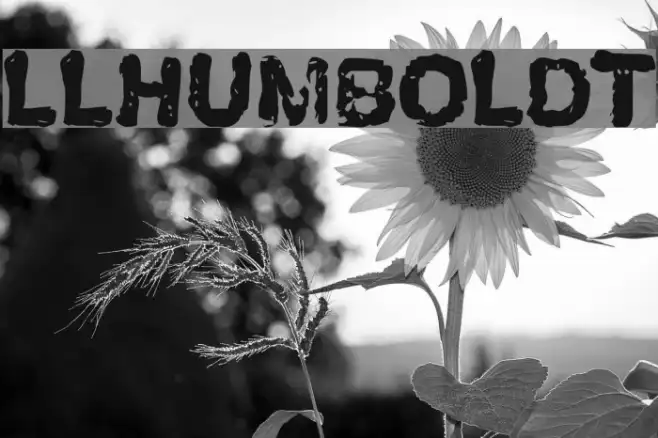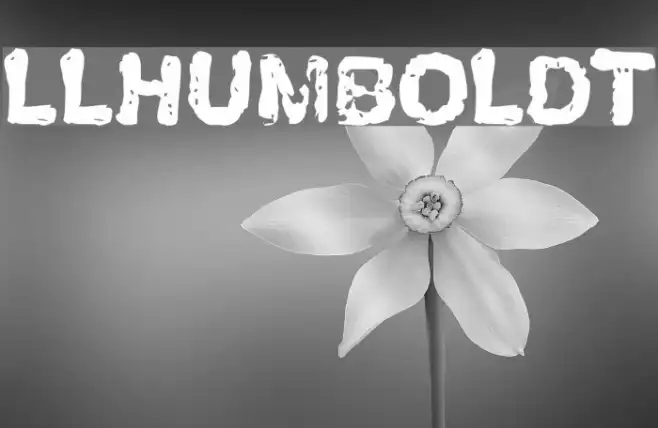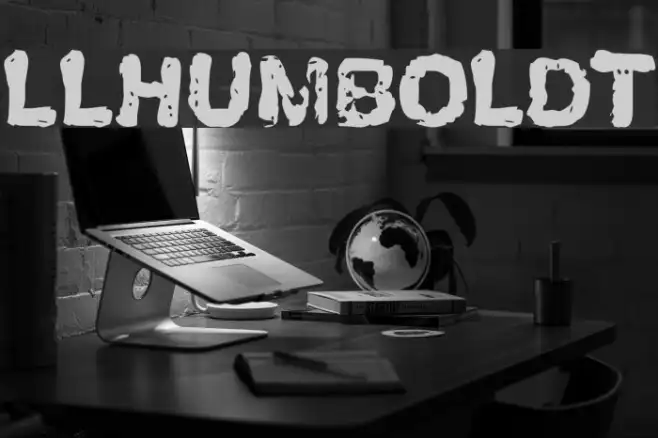
LLHumboldt Font
LLHumboldt Description
This font features a rugged, distressed style with a bold and impactful presence. The characters are heavily textured, giving them a worn and weathered appearance, reminiscent of grunge or urban street art. The uppercase and lowercase letters maintain a consistent design, with irregular edges and a slightly chaotic feel. Numbers and special characters follow the same aesthetic, ensuring a cohesive look across all text elements. The font's unique style makes it stand out, ideal for projects that require a bold statement or an edgy, artistic touch.
| Overall Style | Grunge, Urban, Artistic |
| Proposed Projects | Ideal for album covers, posters, urban-themed designs, and branding that requires a bold, edgy look. |